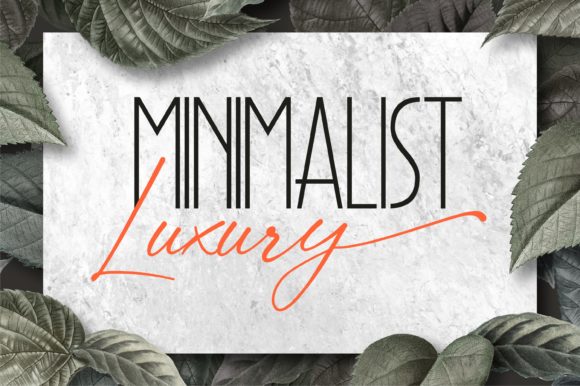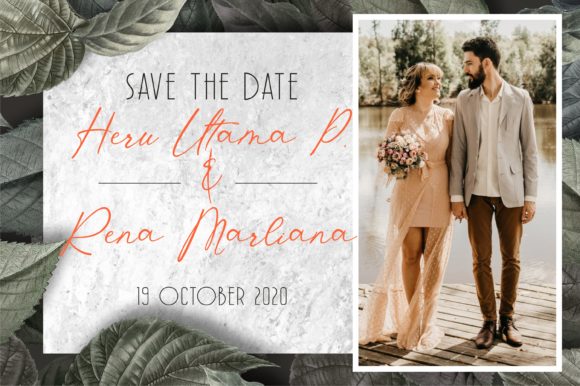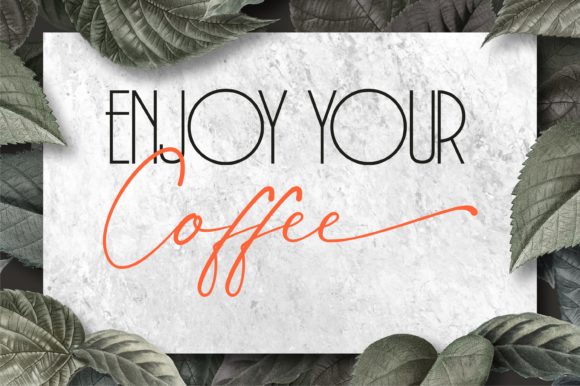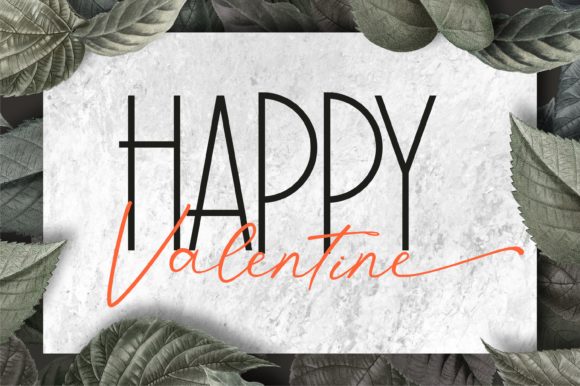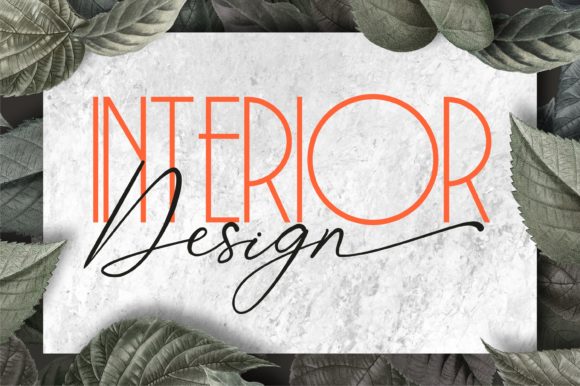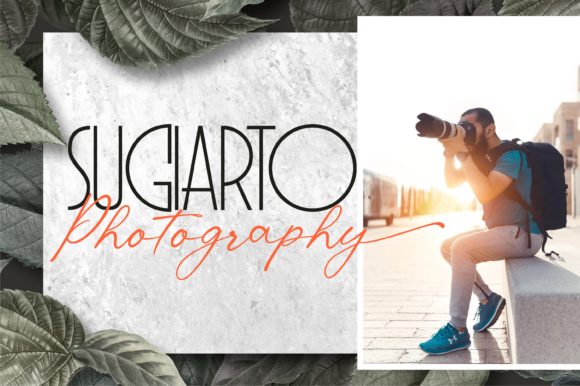
The Perfect Union: Elevate Your Designs with Bloom Christine Font
Have you ever stared at a blank canvas, waiting for the perfect spark to ignite your creativity? That moment of clarity when everything comes together, and your vision starts to take shape? For designers, this moment is priceless. And, with the right tools, it’s even more achievable.
Enter the Bloom Christine Font, a game-changing duo font that combines the clean lines of a sans serif with the elegance of a script. This versatile font is the ultimate companion for designers looking to elevate their projects to new heights. With its PUA encoding, accessing all the glyphs and swashes is a breeze, making it a valuable addition to any design arsenal.
Bloom Christine Font Key Features
- Font Family: Bloom Christine
- Unique Characteristics:
- Floral and elegant script design
- Highly legible and suitable for invitations, wedding cards, and other special occasions
- Includes a wide range of ligatures and swashes for added flair
Bloom Christine Font Review
At first glance, Bloom Christine Font is a visually appealing typeface that exudes elegance and sophistication. ✨ The rounded edges and soft curves create a gentle, feminine feel that is perfect for designs that require a touch of warmth and approachability. The font is well-suited for use in invitations, greeting cards, and other materials where a delicate, whimsical touch is desired.
Here are some of the things that work well in Bloom Christine Font: ✨
- Delicate, rounded edges create a soft, feminine feel
- Perfect for use in invitations, greeting cards, and other materials where a touch of whimsy is desired
- Well-suited for use in body text, where the font’s gentle curves create a soothing reading experience
- The font may not be the best choice for use in large blocks of text, where the rounded edges can make the text difficult to read
- The font’s soft curves can make it difficult to achieve high contrast with bold or italic styles
Overall, Bloom Christine Font is a lovely typeface that is perfect for use in designs where a touch of elegance and sophistication is desired. While it may have a few limitations, the font’s unique charm and versatility make it a great choice for designers looking to add a little whimsy to their projects.
Tips for Getting the Most Out of Bloom Christine Font
For the best results, use Bloom Christine font in designs that require a elegant and sophisticated touch. This font is ideal for wedding invitations, baby shower invitations, and other special occasion designs. Experiment with different font sizes and colors to create a unique and eye-catching design.
Bloom Christine font is commonly used in:
- Wedding invitations
- Baby shower invitations
- Special occasion designs